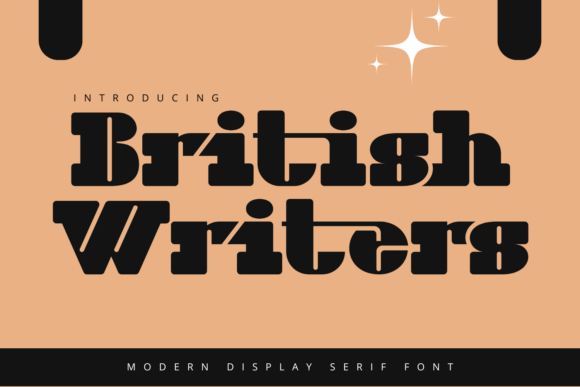
Introduction to British Writers Font
British Writers Font is a retro Slab Serif font.
With its distinct Slab Serif characters, it’s brings a strong, masculine, and captivating vibe Combining retro design elements with a modern twist, this font creates a delightful and unique harmony.
Key Features of British Writers Font